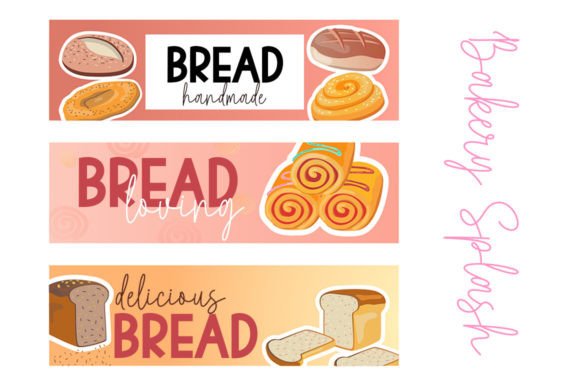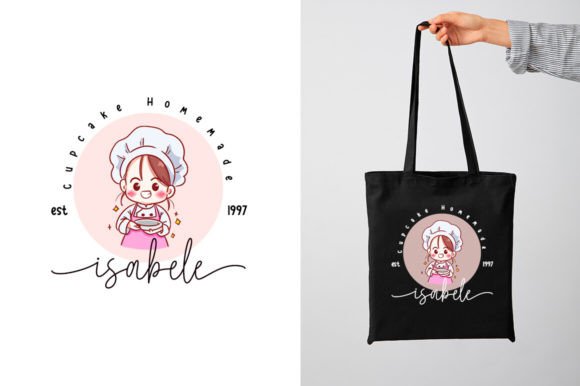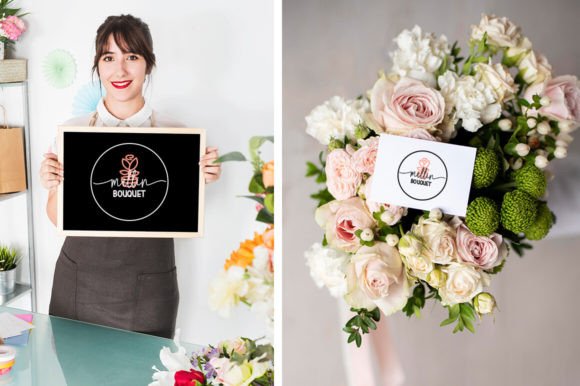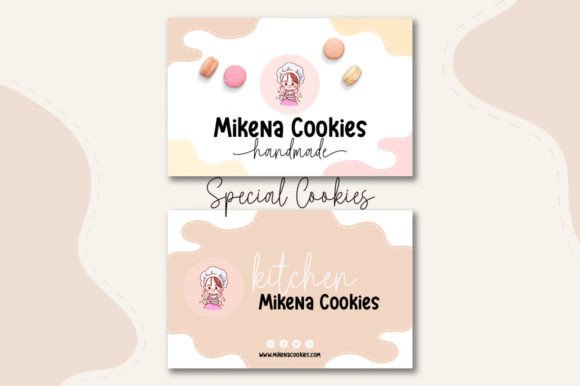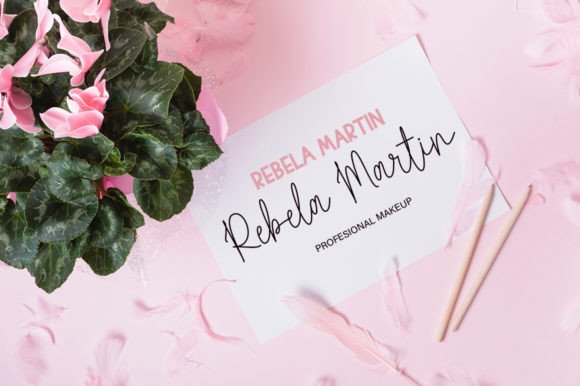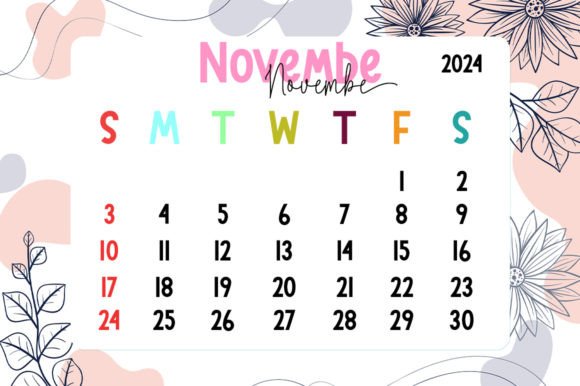
Adding a Touch of Romance to Your Designs
There’s nothing quite like the feeling of bringing a creative project to life. The moment you see your ideas take shape, the sense of satisfaction and accomplishment is unbeatable. For designers, it’s the perfect fusion of art and functionality, and it’s this magic that makes our job so rewarding.
When it comes to adding a touch of romance to your designs, the Bakery Splash Duo Font is a game-changer. This beautiful duo font combines the elegance of a sans-serif with the whimsy of a script, creating a unique and captivating visual experience. Whether you’re working on greeting cards, headlines, or any other project, the Bakery Splash Duo Font is sure to add a delicate and romantic touch.
Bakery Splash Duo Font Key Features
- Unique Characteristics: Bakery Splash Duo Font features a playful, hand-drawn design with a mix of modern and vintage elements, making it perfect for creating eye-catching and unique designs.
Bakery Splash Duo Font Review
I recently had the chance to work with the Bakery Splash Duo Font, and I’m excited to share my thoughts with you. ✨ One of the things that stood out to me was the font’s unique combination of playfulness and sophistication. The duo font format allows for a seamless transition between the bold and regular styles, making it perfect for creating visually appealing headers and titles.
Another aspect of the font that I appreciated was its versatility. ✨ It’s suitable for a wide range of design projects, from food and beverage branding to lifestyle and wellness marketing. The font’s modern and clean design makes it easy to pair with any color scheme or background image.
- Unique and sophisticated design
- Seamless transition between bold and regular styles
- Perfect for headers and titles
- Highly versatile and suitable for various design projects
- ⚠️ Limited character set (only uppercase and lowercase letters, no special characters or accents)
- ⚠️ May not be suitable for designs that require a lot of text or long paragraphs
Overall, I was impressed with the Bakery Splash Duo Font. While it has some limitations, its unique design and versatility make it a great addition to any designer’s toolkit. With some careful planning and consideration, I’m confident that this font can help take your designs to the next level.
Use Bakery Splash Duo Font for:
- Food-related designs, such as bakery menus, restaurant logos, or food packaging.
- Crafting a playful and inviting atmosphere in your branding or marketing materials.
- Creating eye-catching headlines or titles that stand out from the crowd.
For best results, pair Bakery Splash Duo Font with complementary fonts and colors to create a visually appealing design.
Alternatives to Bakery Splash Duo Font
Great Vibes is a beautiful, elegant script font that’s perfect for creating a sense of sophistication and luxury. It’s ideal for use in high-end branding, invitations, and wedding designs. Compared to Bakery Splash Duo Font, Great Vibes has a more refined and polished look, making it suitable for formal events and occasions.